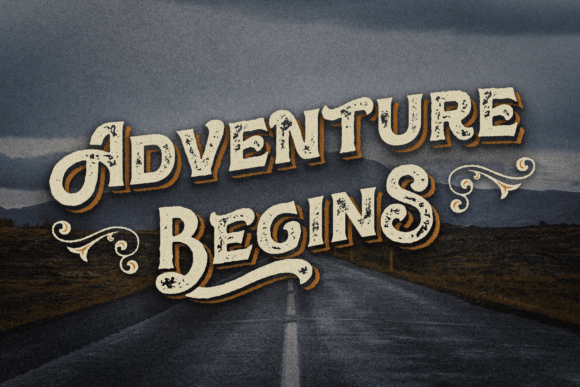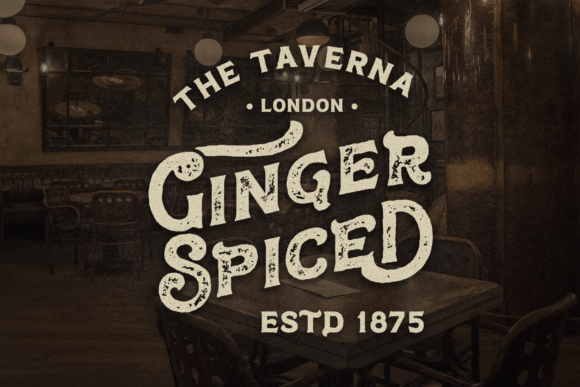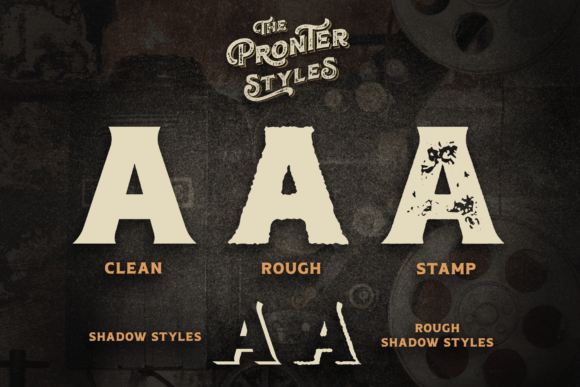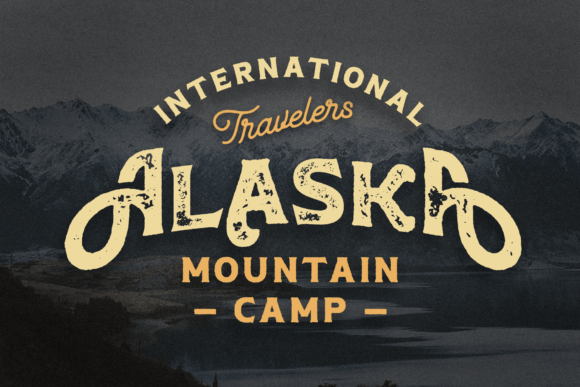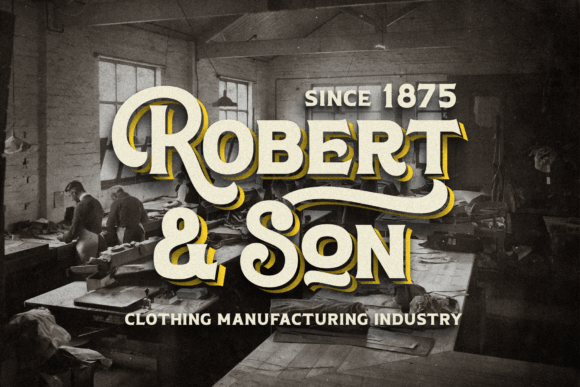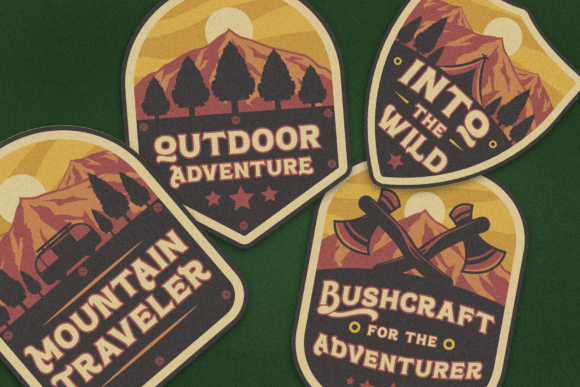
Introduction to Pronter Font
As a designer, there’s nothing quite like the thrill of finding the perfect font to bring your creative project to life. I recall the moment I stumbled upon the Pronter Font, and I knew I had to have it. The combination of its vintage charm and versatility made it the ultimate design resource for any project.
The Pronter Font is more than just a stylish addition to your design arsenal – it’s a high-quality tool that can elevate even the most mundane ideas into something truly special. With its transparent background and OpenType features, you’ll be able to create intricate designs with ease, while the PUA encoding ensures that you can access all of the amazing glyphs and ligatures without any hassle.
Whether you’re working on a modern project or a vintage-inspired one, the Pronter Font is the perfect choice. Its three styles – Regular, Rough, and Stamp – offer a range of options to suit your design needs, and the two additional font styles, shadow and rough shadow, add an extra layer of depth and creativity to your work. With the Pronter Font, the possibilities are endless, and the free download makes it an absolute must-have for any designer.
Key Features of Pronter Font
- High-quality design resource for creative projects, featuring a unique and stylish font.
- Comes with a transparent background, making it easy to customize and integrate into various designs.
- Includes a large character set with over 1000 glyphs, covering a wide range of languages and characters.
- Perfect for use in various design contexts, including logos, branding, and digital products.
Honest Review: Pronter Font
I recently had the chance to work with the Pronter Font, and I have to say it’s been a game-changer for my design projects. As a designer, I’m always on the lookout for high quality design resources that can elevate my creative projects, and Pronter Font definitely delivers.
- ✨ Easy to use: The Pronter Font is incredibly easy to use, even for beginners. It’s a breeze to customize and pair with other design elements.
- ✨ Versatile: I’ve used the Pronter Font for everything from logos to brochures, and it’s been a perfect fit every time.
- ⚠️ Limited font styles: While the Pronter Font is versatile, it’s not the most extensive font family out there. If you’re looking for a wide range of styles, you may want to consider another option.
Overall, I’m really impressed with the Pronter Font. It’s a high quality design resource that’s perfect for any creative project. If you’re looking for a free, easy-to-use font that can add some flair to your designs, the Pronter Font is definitely worth checking out.
Pronter Font
The Pronter Font is a versatile, high-quality design resource ideal for creative projects. With its transparent background, this font is perfect for adding a touch of elegance to your designs.
Tips for Getting the Most Out of Pronter Font
For the best results, use the Pronter Font in conjunction with a high-quality image or background to create a visually appealing design.
The Pronter Font is ideal for:
- Designing business cards and brochures.
- Creating social media graphics and ads.
- Designing websites and landing pages.
Can I use Pronter Font with a transparent background?
Yes, Pronter Font is designed to be used with a transparent background, making it ideal for creative projects that require a high level of customization. The font’s design allows for seamless integration with other design elements, ensuring a professional and polished look for your project.